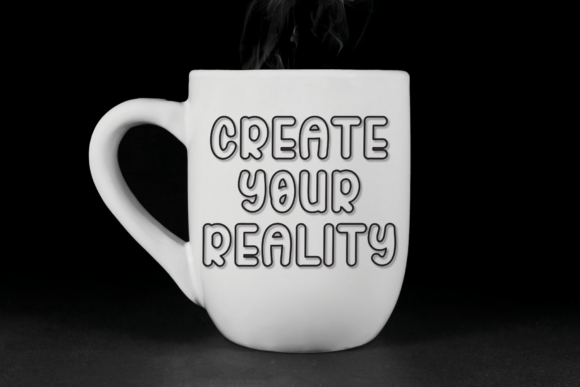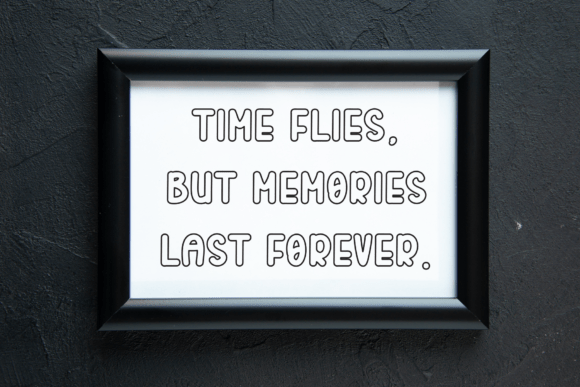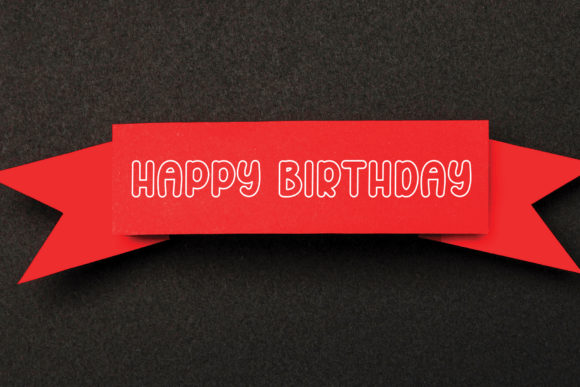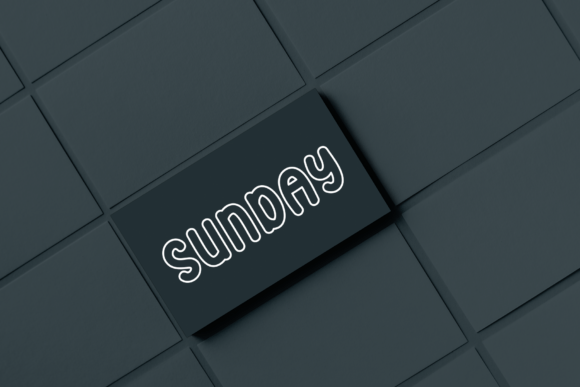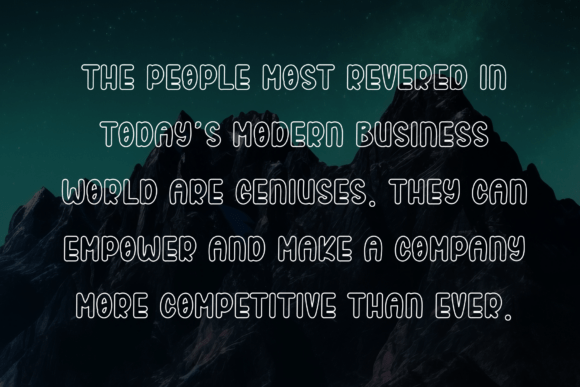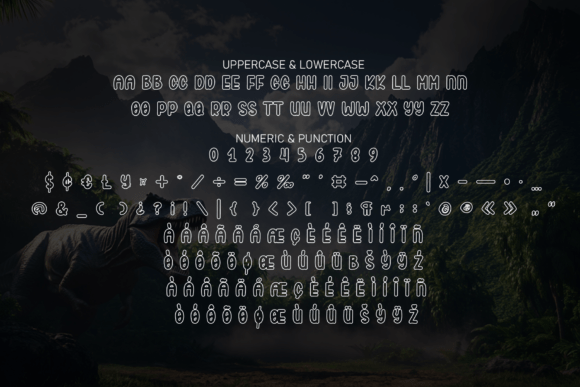
Introduction to Jungle Dinosaur Font Font
Fonts play a crucial role in design, and the Jungle Dinosaur Font font is a typeface that brings both character and versatility to any project. Whether you’re working on a branding project, a website, or a print design, the Jungle Dinosaur Font font offers a unique style that can elevate your work.
| 📌 Font Name | Jungle Dinosaur Font |
| 👤 Author | william jhordy |
Jungle Dinosaur is a casual display font that blends modern simplicity with a playful, approachable vibe.
Featuring clean shapes, soft edges, and well-balanced letterforms, it captures the charm of relaxed design while maintaining clarity and style Ideal for posters, branding, packaging, and social media graphics, it adds a fresh and friendly touch to any project.
Key Features of Jungle Dinosaur Font Font
Why Choose Jungle Dinosaur Font Font?
The Jungle Dinosaur Font font is more than just a typeface – it’s a design tool that helps you communicate your message with style and clarity. Its unique character set and versatile design make it suitable for a wide range of applications, from elegant invitations to bold headlines.
With its carefully crafted letterforms and balanced proportions, the Jungle Dinosaur Font font ensures readability and visual appeal across all mediums.
What makes Jungle Dinosaur Font font special?
The Jungle Dinosaur Font font stands out with its unique design, exceptional readability, and versatility across various design applications.